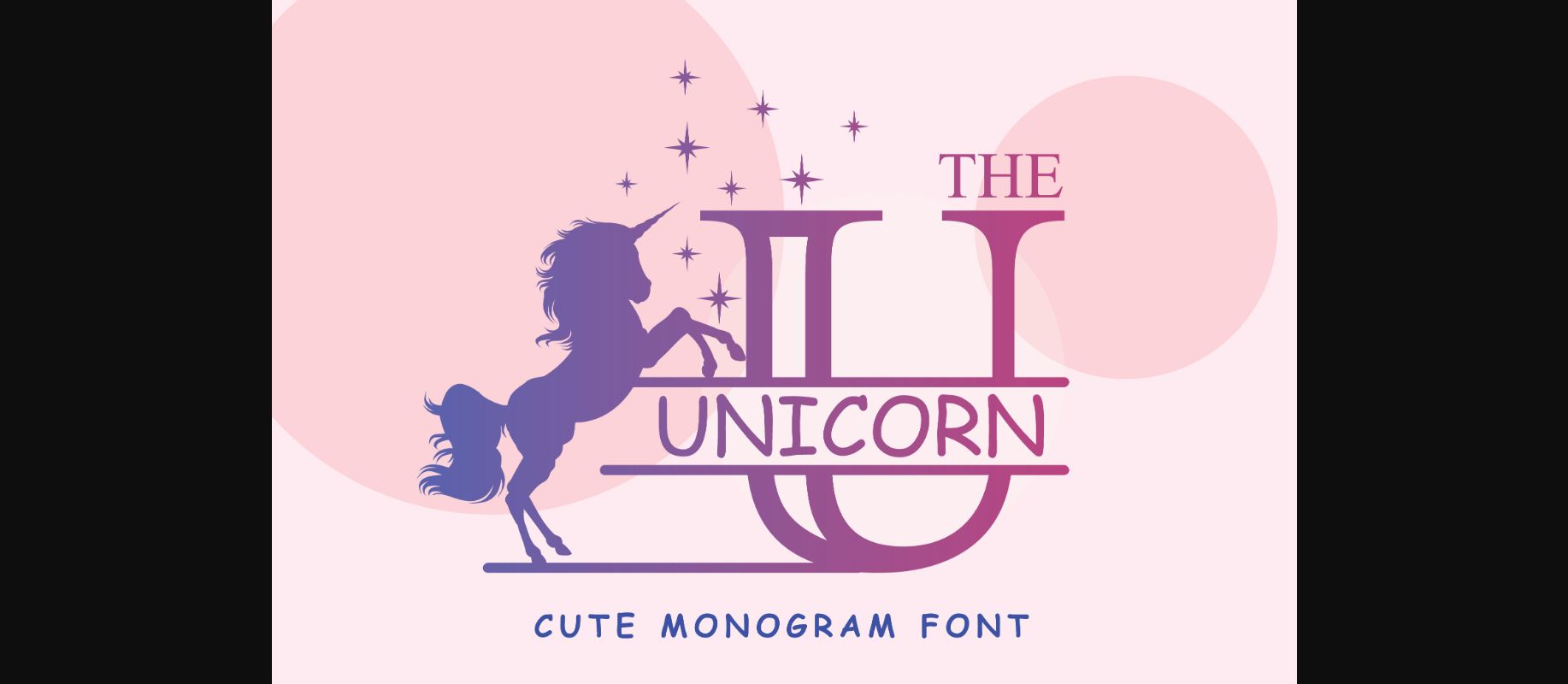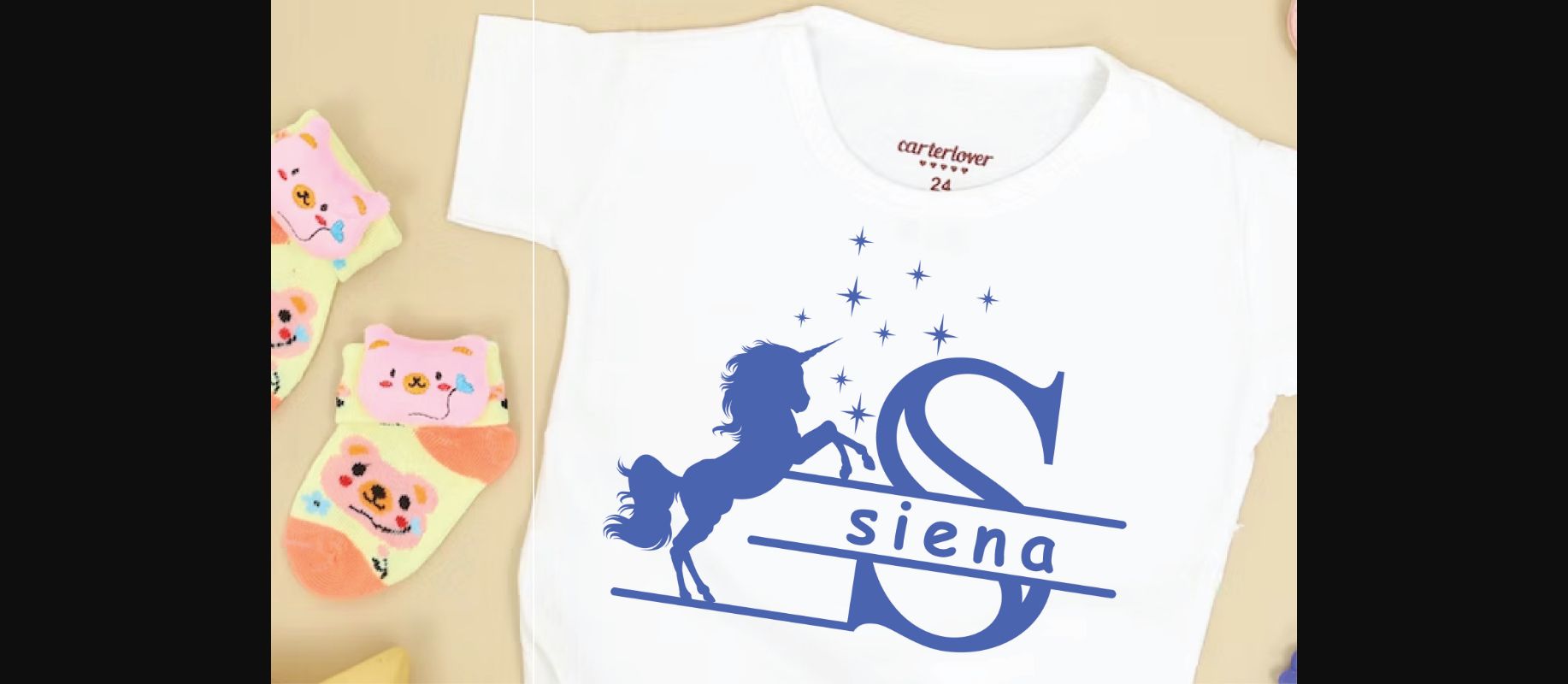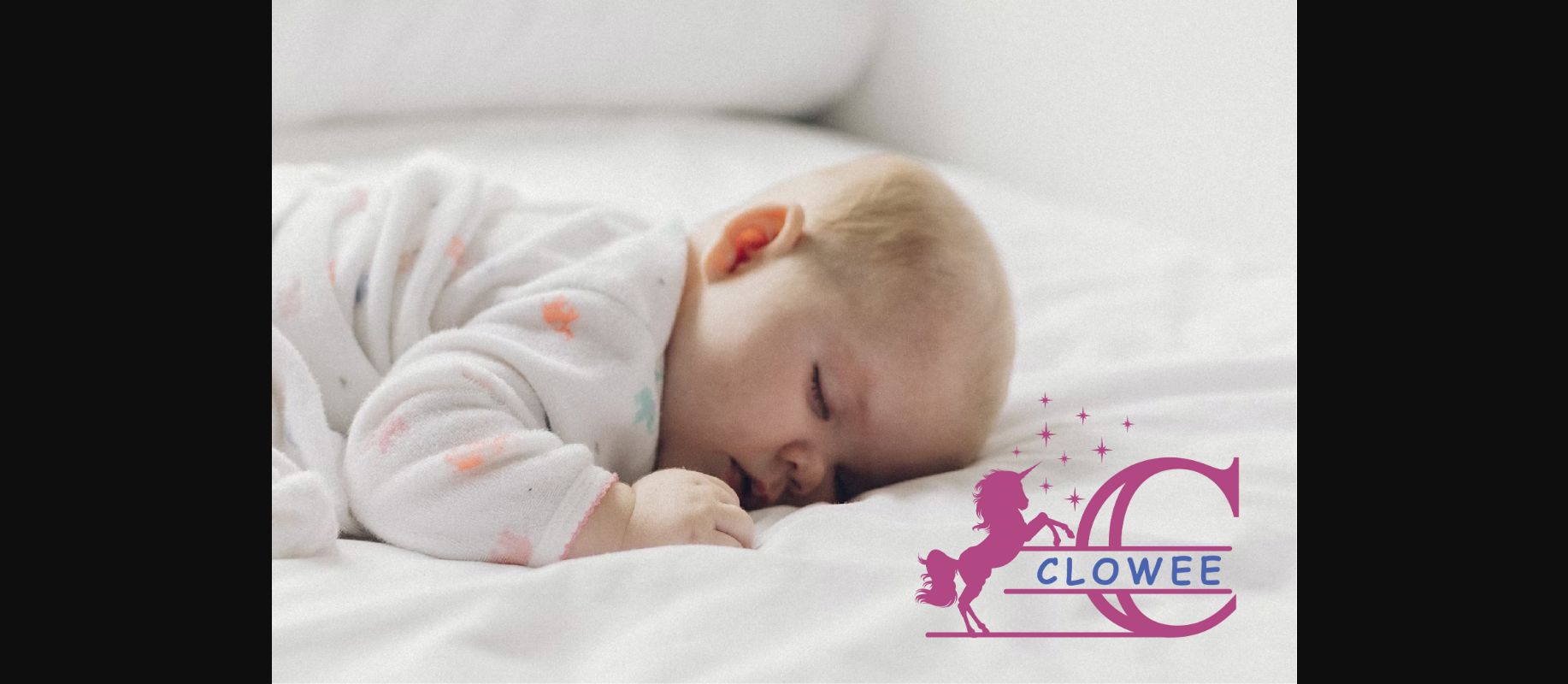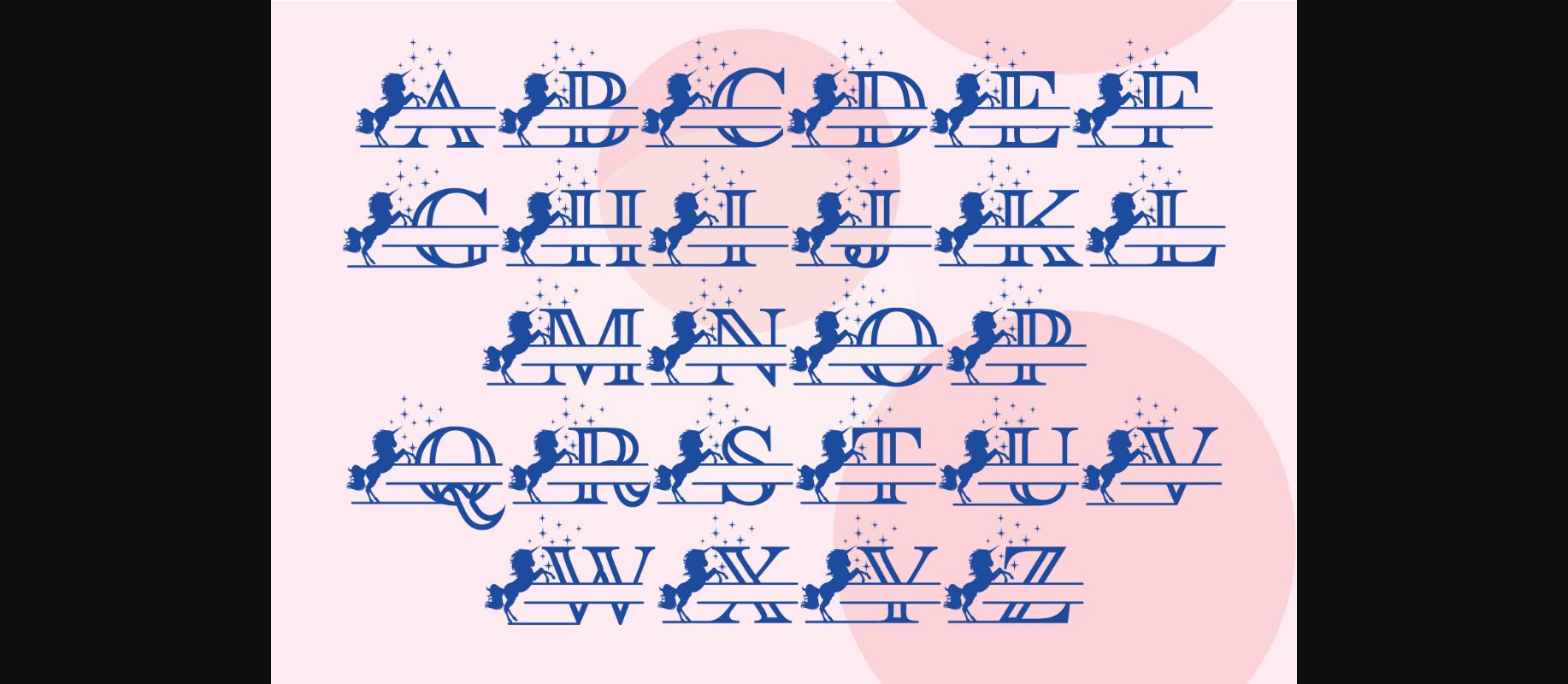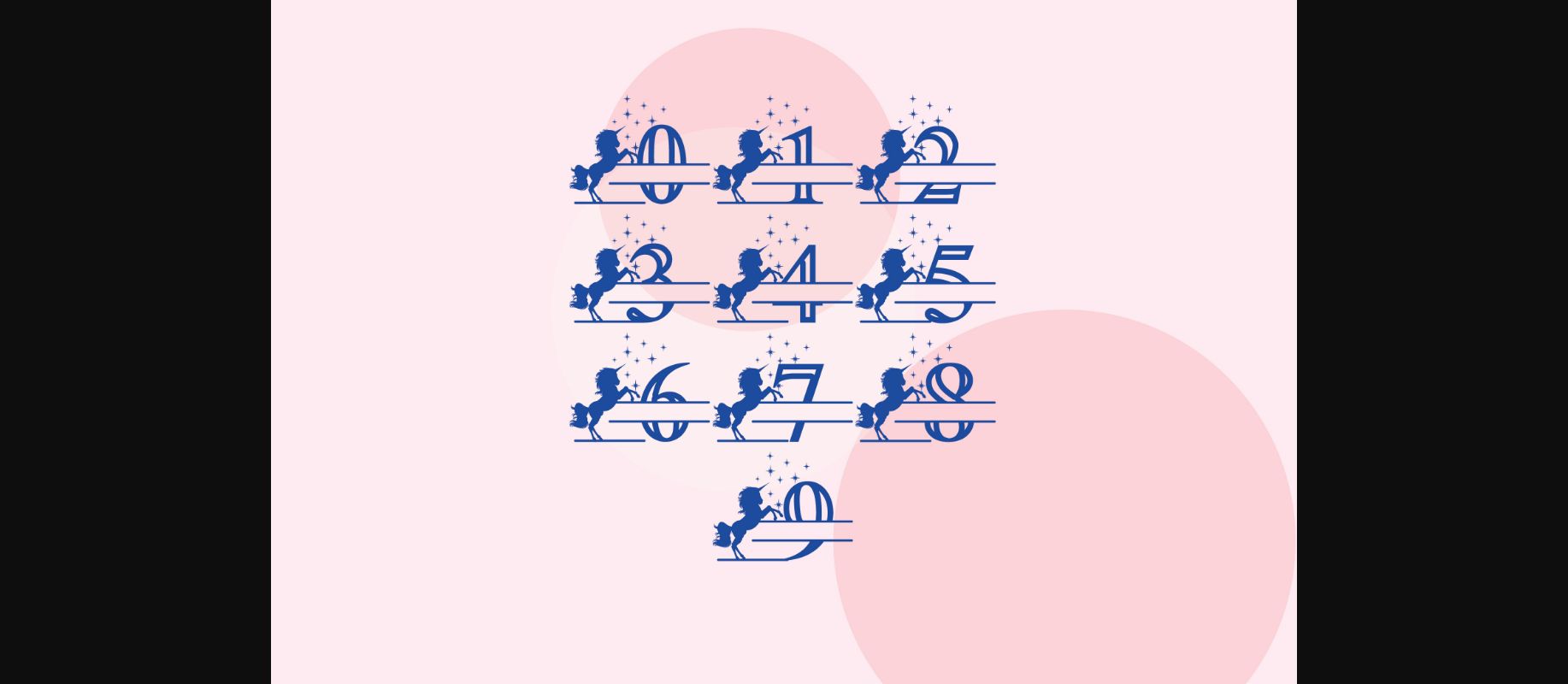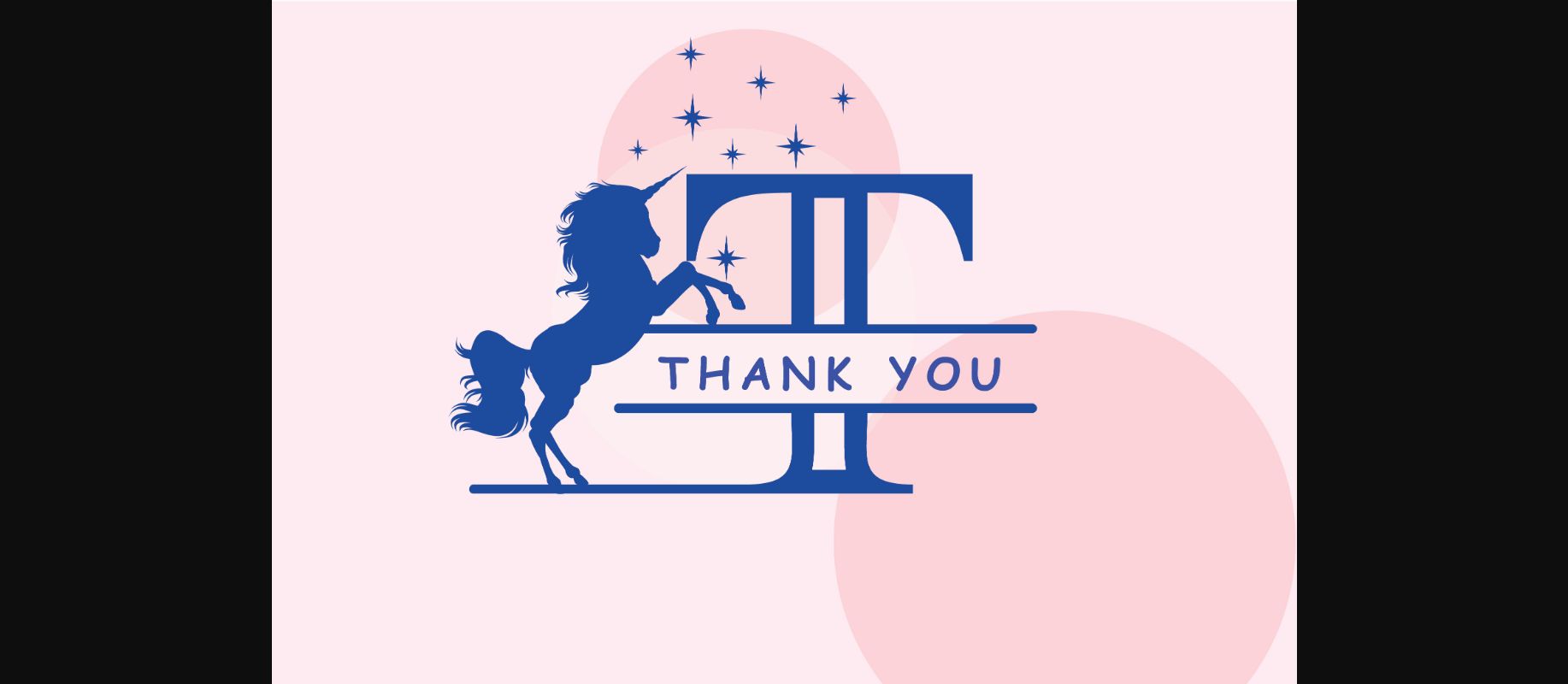
HomeDecorative FontsThe Unicorn Monogram Font Decorative Fonts The Unicorn Monogram Font FacebookXPinterestWhatsApp 1 of 8 ... The Unicorn Monogram Font Poster 2... The Unicorn Monogram Font Poster 3... The Unicorn Monogram Font Poster 4... The Unicorn Monogram Font Poster 5... The Unicorn Monogram Font Poster 6... The Unicorn Monogram Font Poster 7... The Unicorn Monogram Font Poster 8... About The Unicorn Monogram Font The Unicorn Monogram is a cute decorative font, featuring lovely ornaments. Fall in love with its authentic feel and use it to create gorgeous stationary art, eye-catching social media posts, and cute greeting cards. DOWNLOAD NOW People also explored Messy Child Font Hello Sunday Font Annabe Font Shandia Signature Font Geraldyn Font Homemade Hamburgers Font Heartworld Font Horthellis Font Osaka 279 0 TagsThe Unicorn Monogram Font Previous articleValentine Bear FontNext articleIn Mind Font LEAVE A REPLY Cancel reply Comment: Please enter your comment! Name:* Please enter your name here Email:* You have entered an incorrect email address! Please enter your email address here Website: Save my name, email, and website in this browser for the next time I comment. Personal Use Free Cretino Personal Use Free Read more about this font Mallvirra Personal Use Free Read more about this font Numberpile Personal Use Free Read more about this font Makcex Personal Use Free Read more about this font BLOG How to Cut Any Font on Cricut: Convert a Font to SVG (Free) Turn any font into a clean SVG so it cuts crisp on Cricut - a quick 3-step workflow using a free font-to-SVG tool. Using Fonts in Digital Marketing: Tips to Strengthen Your Brand Identity Best Fonts for T-Shirt Design – Top 2025 Picks Free Fonts Risk: Why Free Fonts Can Be Dangerous for Designers